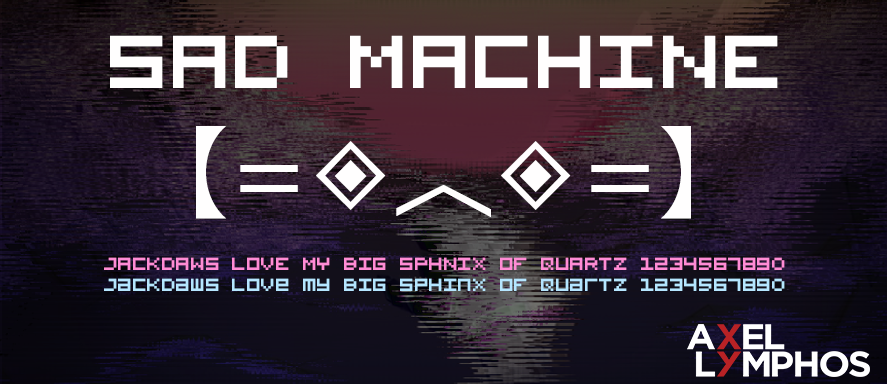
Font name: | SadMachine |
Author: | Axel Lymphos |
Note by Axel Lymphos | |
This font is used in Porter Robinson Sad Machine Video Lyrics. I try to recreate this font and add some glyph. |